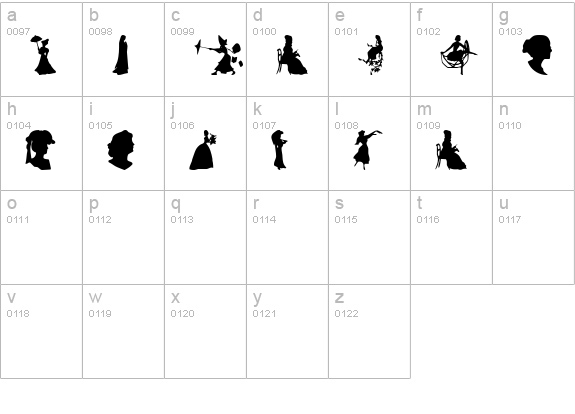
ck_vic-silhouette font is a stylish and modern typeface that adds a touch of elegance to any design project. Its sleek silhouette design makes it perfect for logos, branding, invitations, and more. The font exudes a sense of sophistication and class, making it a versatile choice for both digital and print applications. What sets ck_vic-silhouette font apart is that it is available for free download at FontsMarket.com. This means that you can easily access this high-quality font without any cost, making it a valuable addition to your font library. With its clean lines and contemporary feel, ck_vic-silhouette font is sure to elevate your designs and make a lasting impression.